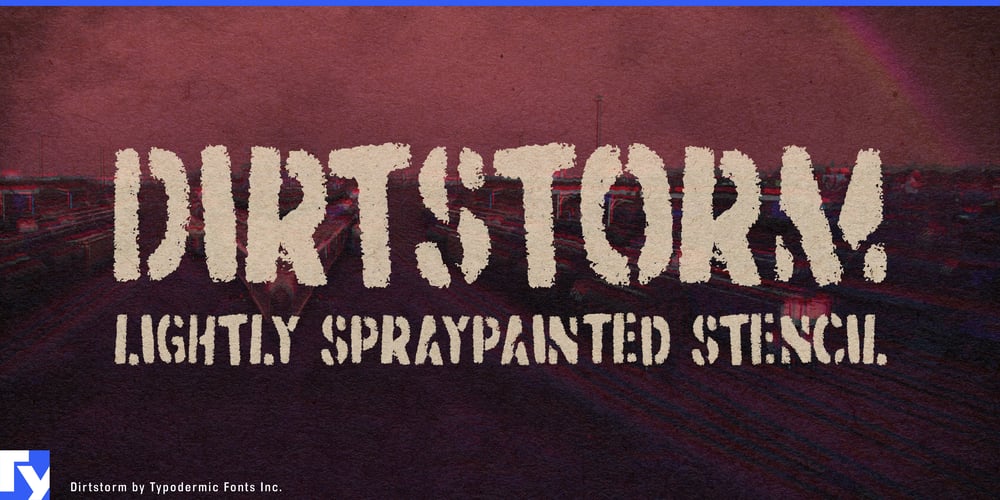
Dirtstorm
Dirtstorm font
Dirtstorm Font Family was designed by Ray Larabie and published by Typodermic. Dirtstorm contains 1 styles and family package options. Dirtstorm: The typeface that doesn’t just speak—it shouts from the streets. This Typodermic Fonts creation isn’t your polite, well-behaved font; it’s a gritty manifesto, a visual revolution sprayed across the urban landscape.Crafted with the raw energy of street art, Dirtstorm wears its imperfections like badges of honor. Each character boasts hand-cut edges and a tattered texture that whisper tales of late-night tagging sessions and dawn street protests. It’s not just a font; it’s a statement, a rallying cry, a visual representation of voices that refuse to be silenced. But Dirtstorm’s rebellion goes beyond mere appearance. Its OpenType ligatures are the secret weapons in your typographic arsenal, creating bespoke character sequences that bring an uncanny realism to your designs. It’s as if each word has been individually stenciled, each message uniquely crafted for maximum impact.Imagine your slogans emblazoned across protest posters, your brand name grunged up for an edgy campaign, or your album title looking like it was spray-painted on a subway wall. Dirtstorm doesn’t just deliver text—it delivers authenticity, attitude, and a hefty dose of street cred. This font speaks the language of the streets fluently, supporting a vast array of Latin-based European writing systems. From the graffiti-laden walls of Berlin to the protest banners of Paris, Dirtstorm ensures your message retains its raw power across linguistic borders. Dirtstorm isn’t for the faint of heart or the lovers of pristine, corporate typography. It’s for designers who aren’t afraid to get their hands dirty, for brands that want to connect with the pulse of urban culture, for messages that need to cut through the noise and grab attention. So, are you ready to unleash a typographic storm? Embrace Dirtstorm and watch as your designs break free from the sterile world of cookie-cutter fonts. In a landscape cluttered with polished, predictable typography, Dirtstorm is your secret weapon—a font that doesn’t just communicate, but provokes, challenges, and demands to be noticed.Because in a world where everyone’s shouting to be heard, Dirtstorm doesn’t just raise its voice—it tags the walls, stencils the sidewalks, and leaves an indelible mark on the urban consciousness. This isn’t just a font. It’s a force of nature, a Dirtstorm ready to sweep through the streets and shake up the status quo.